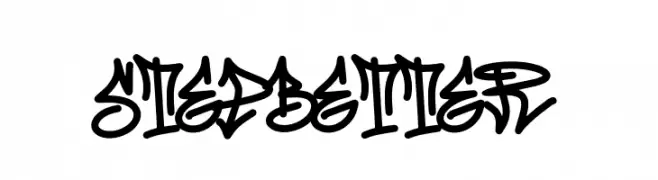
( Fonts by Ronny Studio )
A bold, graffiti-inspired font with dynamic, interconnected strokes.
( Fonts by Figuree Studio )
A bold, graffiti-inspired font with angular strokes and dynamic energy.
( Fonts by Din Studio )
A bold, graffiti-inspired font with a dripping effect for a dynamic, urban look.
( Fonts by Joseph Dawson )
A bold, horror-themed font with sharp serifs and dramatic embellishments.
( Fonts by HyFont Studio )
A playful, casual handwritten font with smooth, rounded strokes.
( Fonts by wep )
A bold, graffiti-style font with dynamic, hand-drawn strokes.
( Fonts by Studio Hello Good )
A bold, graffiti-inspired font with sharp angles and a dynamic, urban style.
( Fonts by wep )
A bold, graffiti-inspired font with dynamic, hand-drawn strokes.
( Fonts by Syifa Fauzia Zazuli )
A playful, casual handwritten font with rounded, consistent strokes.
( Fonts by Inermedia Studio )
A playful and elegant script font with flowing, cursive letters and subtle flourishes.